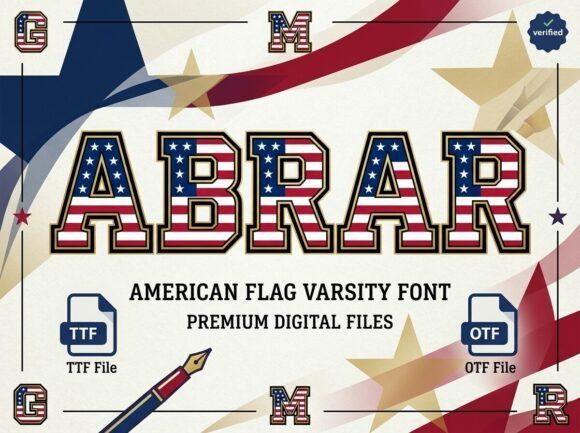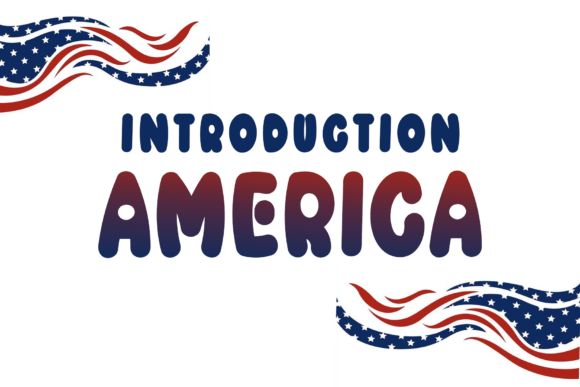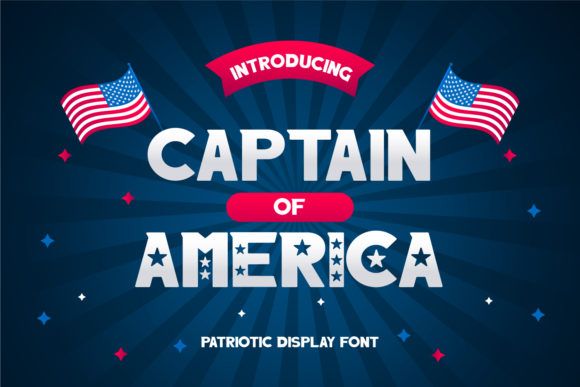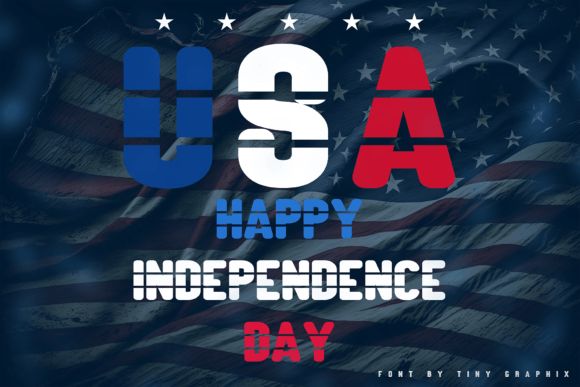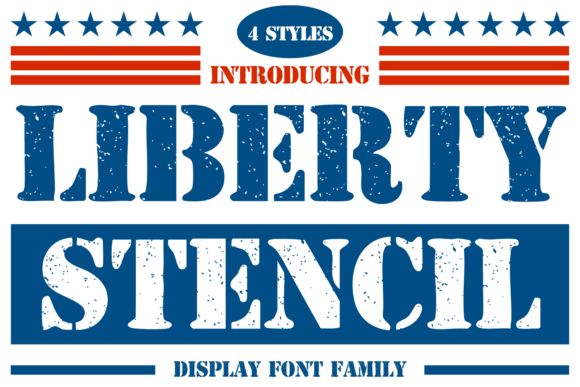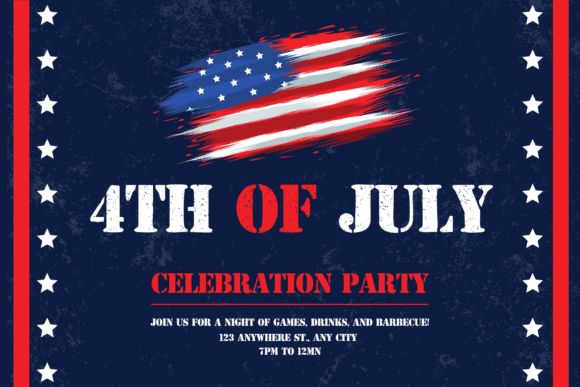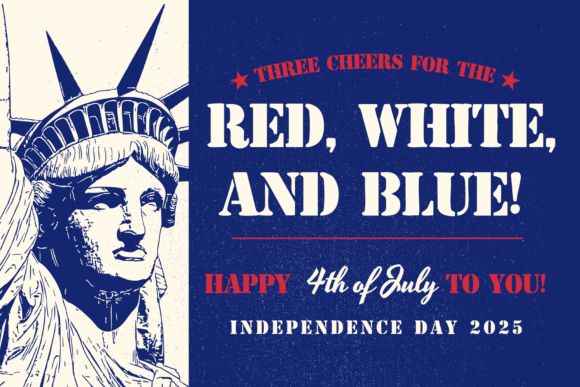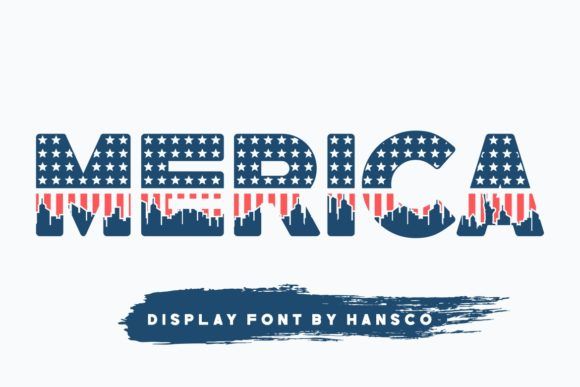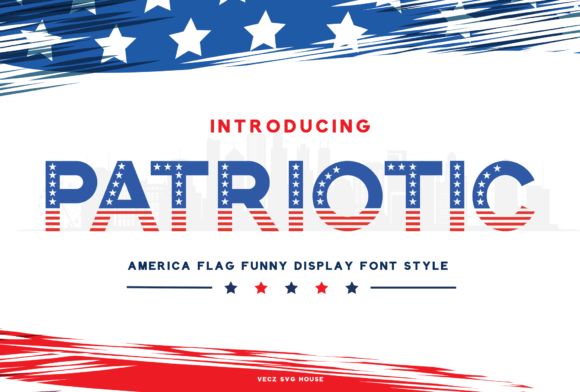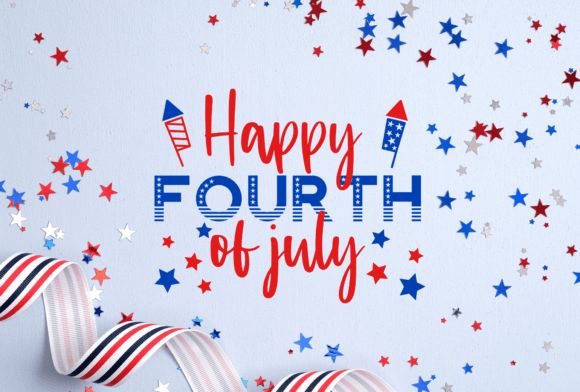
17 Best 4th of July Fonts for Patriotic Designs
Nothing sets the tone for an Independence Day design faster than the right font.
You can use the same phrase โ€” โ€œHappy 4th of July,โ€ โ€œLand of the Free,โ€ โ€œUSA,โ€ โ€œStars & Stripesโ€ โ€” and itโ€™ll feel completely different depending on the typography. A rough stencil font feels bold and military-inspired. A retro script feels warm and nostalgic. A varsity-style font instantly leans sporty and energetic.
Thatโ€™s why 4th of July fonts matter so much for patriotic designs. Theyโ€™re not just decorative extras. Most of the time, the font is the thing people notice first.
These fonts work especially well for:
• T-shirt graphics
• Etsy printables
• Parade banners
• Party invitations
• Social media posts
• Cricut crafts
• Posters
• Patriotic merchandise
Some styles feel playful and family-friendly. Others have more of a rugged Americana look. A few are cleaner and more modern, which is nice when you donโ€™t want the design to look too busy.
In this guide, Iโ€™m walking through 17 of the best 4th of July fonts for patriotic designs, from bold military-inspired lettering to cute craft-friendly styles that work nicely for summer projects.
4th of July Fonts: 17 Best Patriotic Fonts for Bold USA Designs
1. America Font
America Font has a cheerful, easygoing patriotic look. It feels festive without being too loud, which makes it a safe pick for designs that need to feel friendly and approachable.
This font works especially well for:
• Classroom decorations
• Kids party invitations
• Summer camp graphics
• BBQ event signage
• Social media posts
• Family reunion merchandise
The rounded letter shapes give it a warm personality. It doesnโ€™t have that harsh military feel some patriotic fonts lean into, so itโ€™s better for designs centered around celebration, family, and summer fun.
One thing I like about this kind of font is that it stays readable. Some decorative fonts look fun at full size, then fall apart when you shrink them for a sticker or mug mockup. America Font keeps the letters clear enough for smaller uses.
It also pairs nicely with simple sans-serif fonts or casual handwritten accents. That gives you room to build a full design without everything fighting for attention.
Use it for:
• Stickers
• Vinyl decals
• Tote bags
• Party banners
• Mug designs
If you want a patriotic font that feels joyful, clean, and flexible, America Font is a solid choice.
2. Milkshake America Font
Milkshake America Font feels like vintage summer nostalgia in font form.
It has that soft retro charm that works beautifully for designs inspired by fireworks, diners, road trips, picnic blankets, and old-fashioned Independence Day parties.
This font is a good fit for projects that need:
• Handmade warmth
• Craft-friendly style
• Retro Americana mood
• DIY personality
It works well for:
• Greeting cards
• Scrapbooking
• Party invitations
• Etsy crafts
• Cricut creations
• Picnic signage
The softer curves make it stand apart from heavy block fonts and military-style typefaces. It feels cute without looking childish, which is a nice balance for lifestyle products and family-focused seasonal designs.
Milkshake America also has enough personality to carry a simple phrase on its own. You donโ€™t need to cover the layout in fireworks or flag graphics for it to feel complete.
It pairs nicely with:
• Vintage textures
• Pastel Americana palettes
• Hand-drawn illustrations
• Summer graphics
For patriotic typography with charm rather than toughness, Milkshake America is one of the more inviting options.
3. Yankee Doodle Font
Yankee Doodle Font has a classic, festive Americana feel. Itโ€™s cheerful, nostalgic, and a little playful in a way that suits traditional July 4th projects.
This typeface works especially well for:
• July 4th invitations
• Handmade decorations
• Picnic signage
• Patriotic quote graphics
• Scrapbooking
• DIY craft projects
The style reminds me of small-town parade posters and old community event flyers. Not overly polished, but thatโ€™s part of the appeal. It has a handmade quality that makes a design feel warmer.
How do I pair patriotic fonts effectively?
Use decorative patriotic fonts for headlines and pair them with clean sans-serif or simple serif fonts for supporting text. This keeps layouts balanced and easy to read.